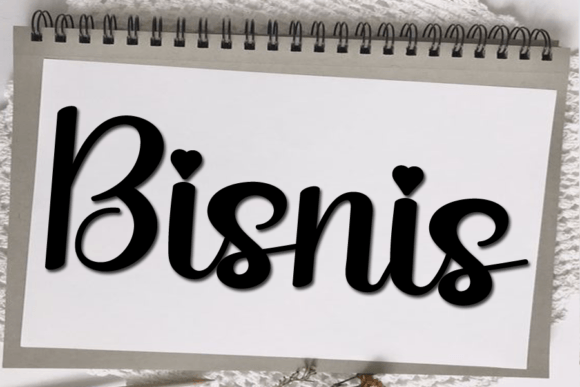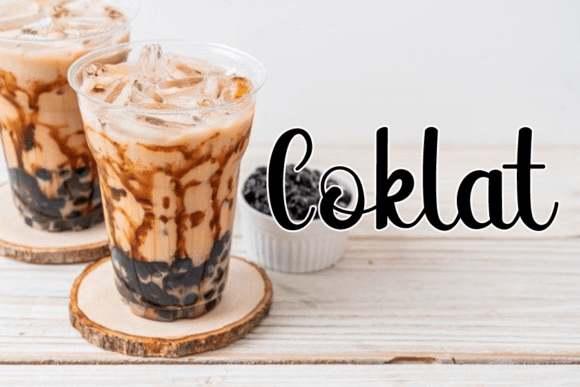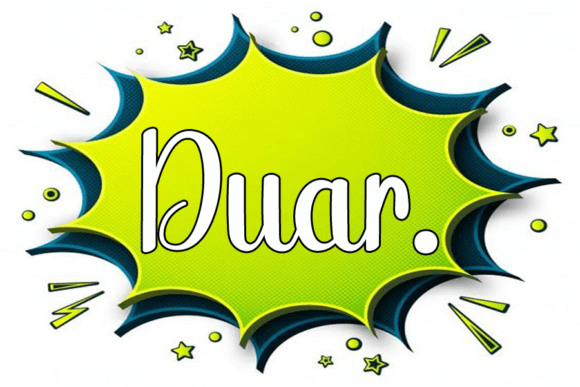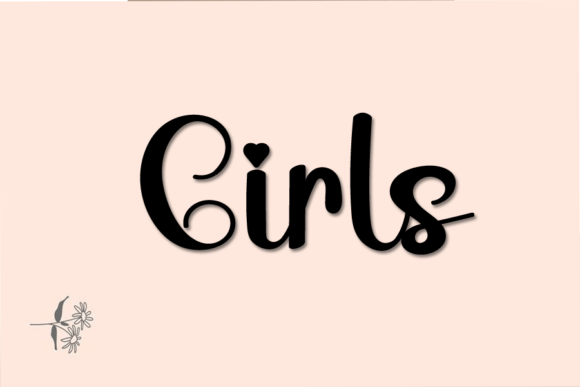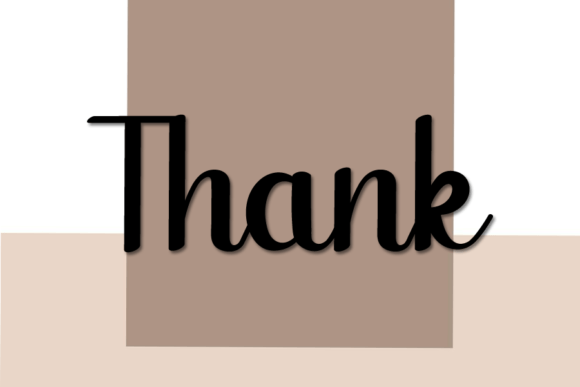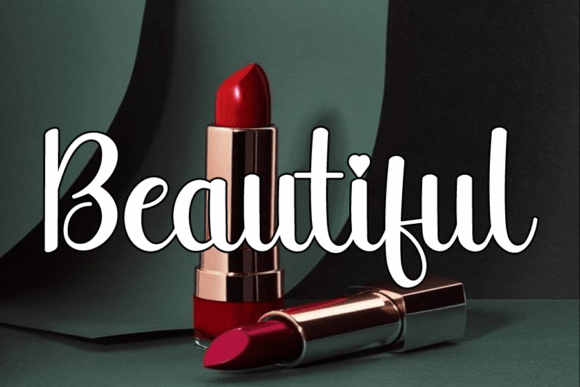
Smile Font
About Smile Font
Smile is a sweet and cursive handwritten font. This gentle font will look gorgeous on a variety of design ideas. It will add a joyful and romantic touch to each of your projects!
It is suitable for logotypes, headlines, corporate identity, brand identity, the apparel industry, posters, music, movies, games, magazines, books, comics, cartoons, YouTube, Instagram, websites, or any of your creative design projects.